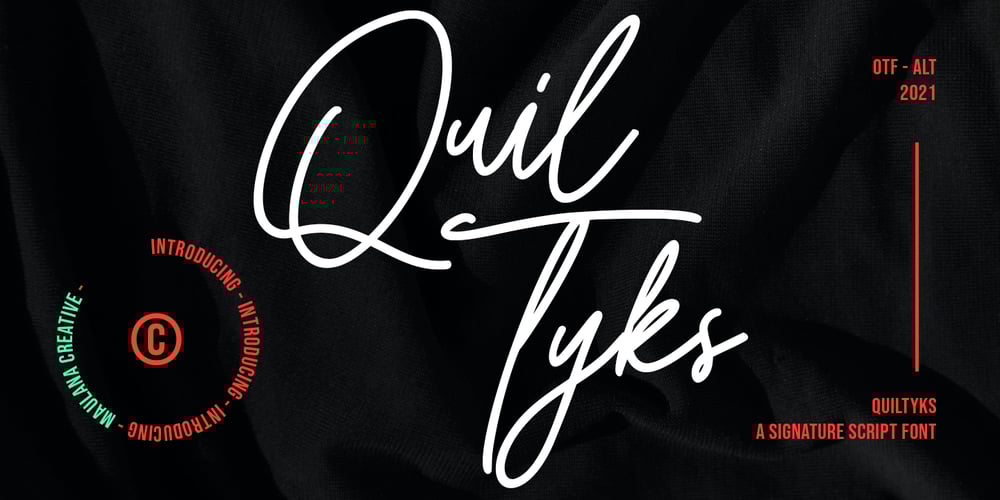
Quiltyks Font Family was designed by Gilang Maulana and published by Maulana Creative. Quiltyks contains 2 styles and family package options. Quiltyks is a casual script font. With regular mono-line stroke, narrow, slanted and fun character with a bit of ligatures and lowercase alternatives. To give you an extra creative work. Quiltyks font support multilingual more than 100+ language. This font is good for logo design, Social media, Movie Titles, Books Titles, a short text even a long text letter and good for your secondary text font with sans or serif. Make a stunning work with Quiltyks font. Cheers, MaulanaCreative